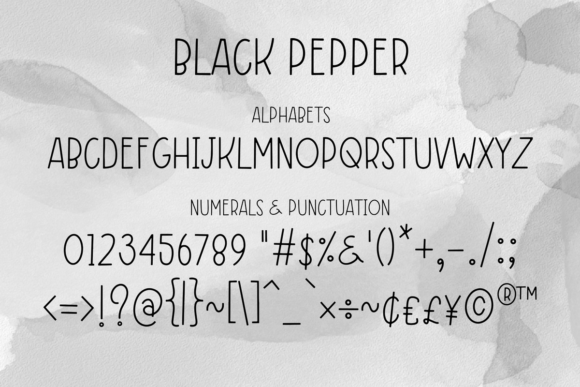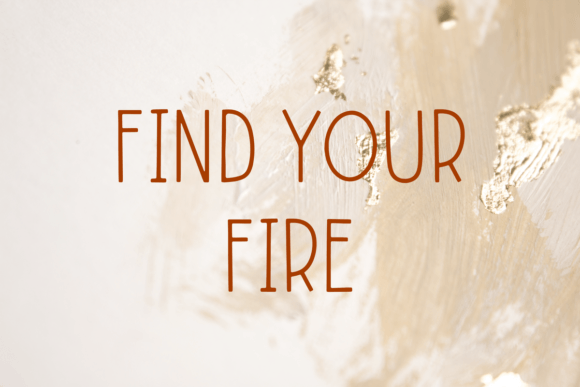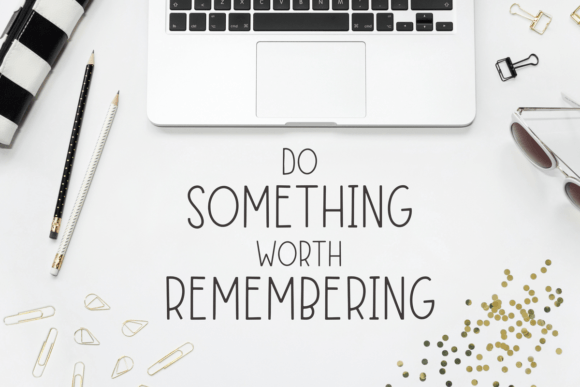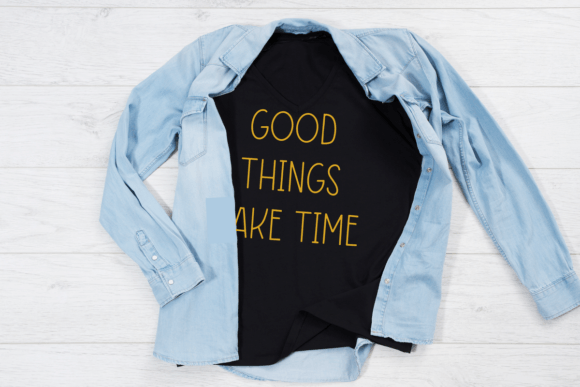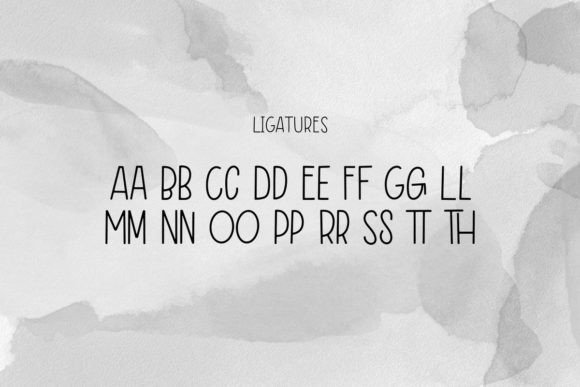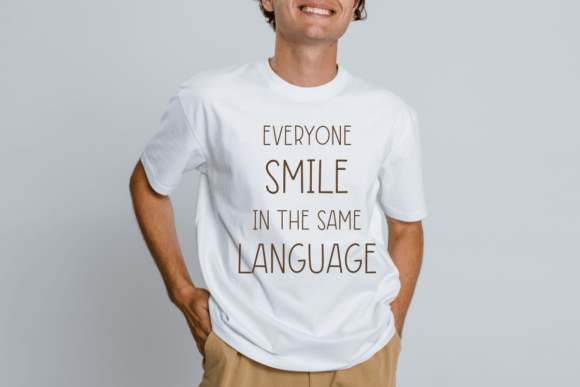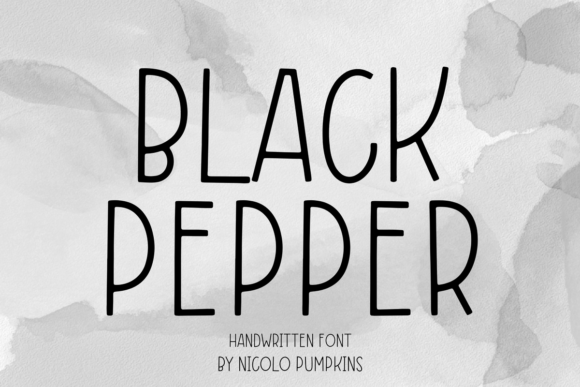
The Ultimate Guide to Black Pepper Font: A Cute and Friendly Handwritten Font
I’ll never forget the time I was working on a project for a client’s t-shirt design. I had the concept, the graphics, and the message, but something was missing – the perfect font. I scoured the internet, tried out dozens of fonts, but none seemed quite right. That was until I stumbled upon Black Pepper Font. ✨ It was love at first sight! The cute and friendly handwritten style instantly elevated my design, and I knew I had found the one.
An Honest Review of Black Pepper Font
- ✨ Cute and Friendly Style: Black Pepper Font has a unique, charming quality that makes any design stand out.
- ✅ PUA Encoded: The font is PUA encoded, making it easy to access all glyphs and swashes.
- 🎨 Versatile: Perfect for creating quotes, logos, or any lettering product like t-shirts, cards, tote bags, mugs, and pillowcases.
While Black Pepper Font is amazing, there are a few things to keep in mind: 🤔
- ⚠️ Limited Formality: As a handwritten font, it may not be suitable for very formal or professional designs.
- ⚠️ Glyph Overload: With so many glyphs and swashes available, it can be overwhelming to navigate – but trust me, it’s worth it!
The Backstory of Black Pepper Font
Black Pepper Font was designed with love and care by a talented font designer. The story goes that the designer wanted to create a font that would bring a smile to people’s faces – a font that would be perfect for crafting and designing fun, creative projects. And so, Black Pepper Font was born! 🎉
A: PUA (Private Use Area) encoding allows font designers to include additional glyphs and characters that aren’t part of the standard Unicode range. This means you can access a wide range of swashes, glyphs, and alternates with ease, making your designs more unique and creative.
Q: Is Black Pepper Font suitable for digital and print designs?
A: Absolutely! Black Pepper Font is versatile and works beautifully for both digital and print designs. Its clear, readable style makes it perfect for a wide range of applications.